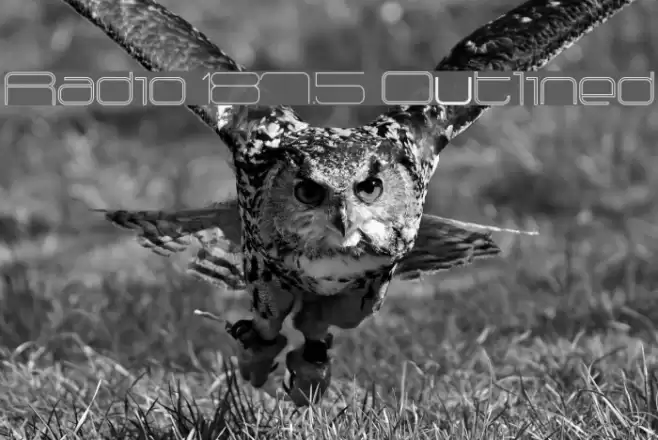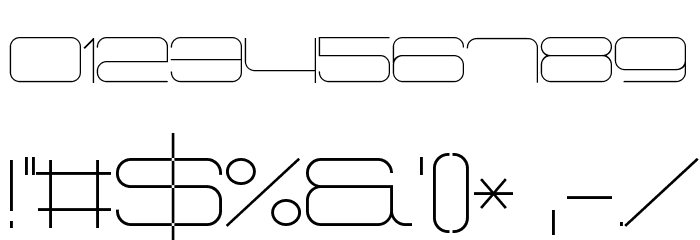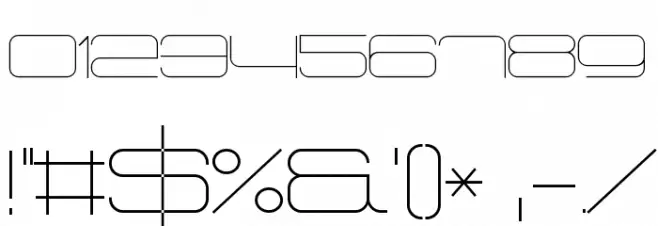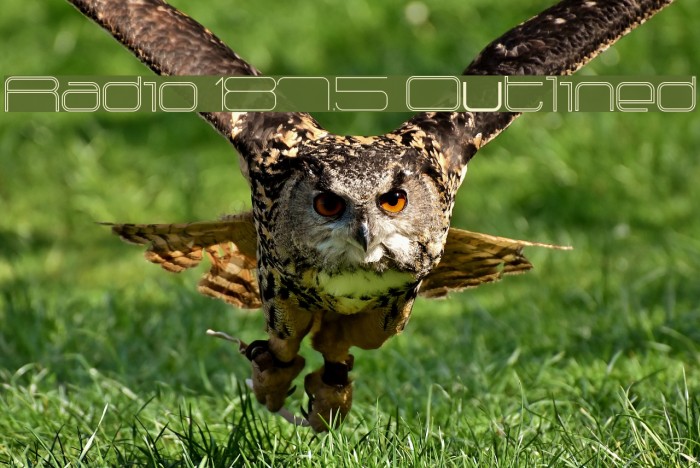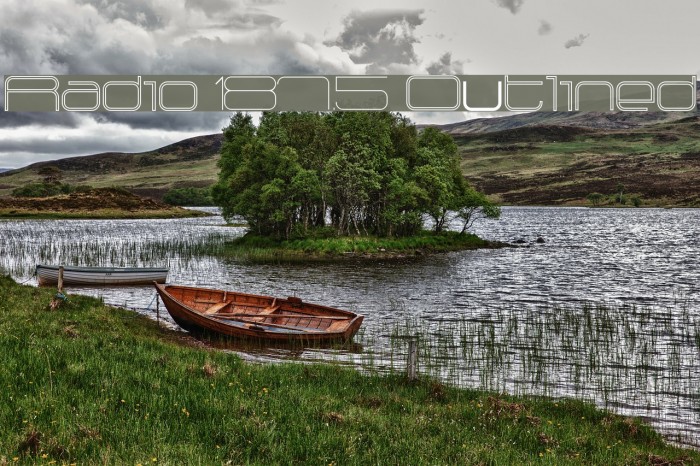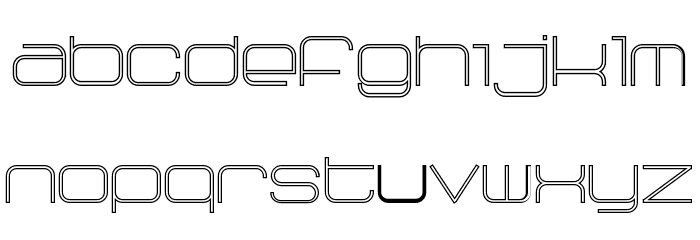
Radio 187.5 Outlined Font
Radio 187.5 Outlined Description
This font features a modern, outlined design with a geometric and futuristic aesthetic. The characters are constructed with clean, straight lines and rounded corners, giving them a sleek and contemporary look. The uppercase and lowercase letters maintain a consistent style, with a uniform height and width that creates a harmonious appearance. The numerals and special characters follow the same design principles, ensuring a cohesive overall look. The outlined nature of the font adds a unique dimension, making it stand out in various design contexts.
A modern, outlined geometric font with a futuristic aesthetic from Uncategorized fonts.
- Proposed Projects: Ideal for technology branding, futuristic posters, digital interfaces, and modern art projects.